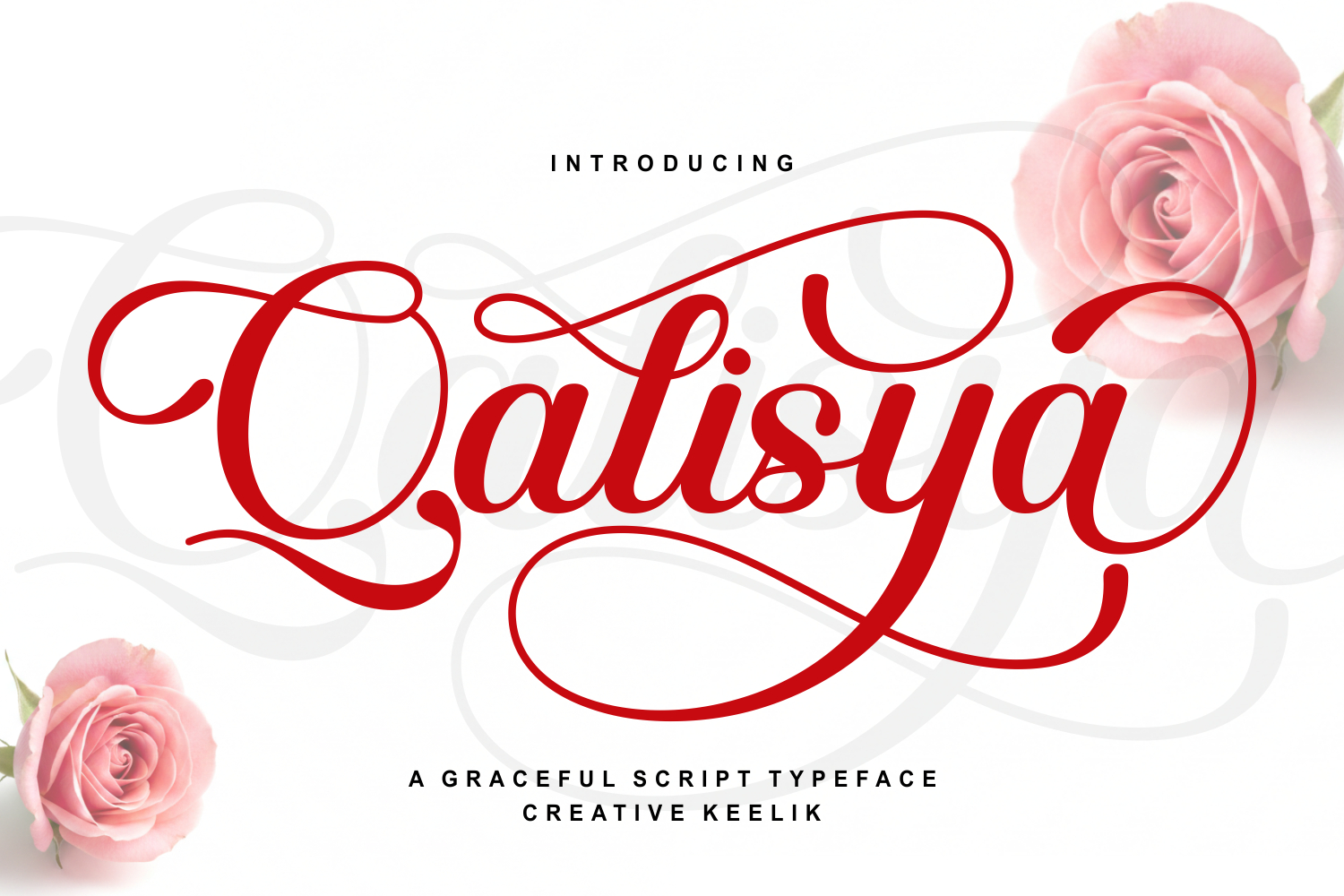
Qalisya
Qalisya | Graceful Elegance in Every Curve
Step into a world of high fashion and romantic allure with the Qalisya font. This graceful script typeface is a stunning display of calligraphic mastery, featuring elongated, sweeping flourishes and delicate, thin-to-thick transitions.
The Qalisya font is designed to evoke a sense of movement and luxury, mimicking the effortless stroke of a master calligrapher’s pen. It is a typeface that breathes “expensive,” making it the crown jewel for any project that requires a touch of sophistication, romance, and high-end beauty.
The Qalisya typeface is a specialist in “the big moment.” It is the definitive choice for luxury wedding invitations, high-end cosmetic branding, and premium event signage. Because of its intricate flourishes and wide horizontal presence, the Qalisya font works best as a display face where it can have plenty of room to breathe.